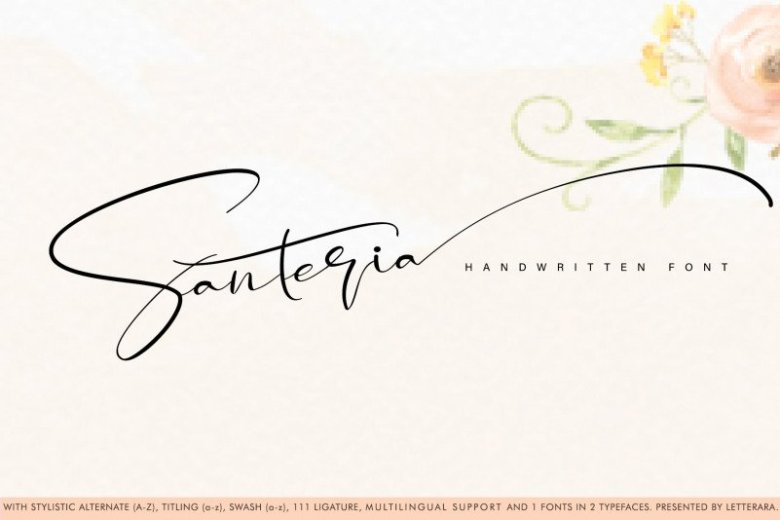
Santeria Calligraphy Font
Hello, friends! If you’re looking for a new calligraphic typeface for your project, try this font. Proudly presents latest product Santeria Script Font. Santeria Calligraphy Font is a beautiful calligraphy.
It’s perfect for adding a luxurious touch to your logos, packagings, wedding stationary, websites, and every other designs which need a handwritten feel. This family includes 2 styles which can be combined perfectly. Giving you the opportunity to create multiple unique designs in an instant.